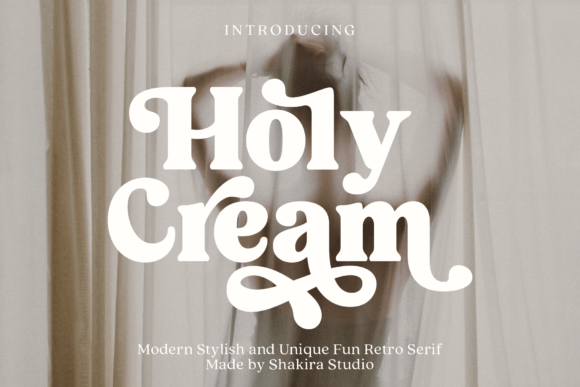
Introducing Holy Cream Font, the best font for resume headlines that will take you back to the trendy retro era. Created by Shakira Studio, this serif font family combines classic style with a modern twist, making it perfect for those who want to make a bold statement.
With its bold and contoured serif design, Holy Cream exudes a strong vintage touch that instantly captures attention. But what sets this font apart is its stylish and quirky alternatives, which add a charming creative dimension to your designs. Each letter is carefully crafted to emphasize uniqueness and elegance, making your headlines stand out from the crowd.
Holy Cream allows you to experience a touch of fun nostalgia while exploring ongoing design trends. Whether you're creating a print ad, poster, or any other graphic design, this font delivers a trendy, retro vibe that adapts seamlessly to various visual styles. It effortlessly adds a stylish and unique retro flair to your designs, captivating the audience and leaving an unforgettable impression.
But that's not all – Holy Cream is PUA encoded, which means you can effortlessly access all of its amazing glyphs and ligatures. This feature allows you to unleash your creativity and experiment with different letter combinations, giving your designs a truly personalized touch.
Why settle for ordinary fonts when you can elevate your designs with Holy Cream? Its keyword-rich and captivating style will instantly grab attention and make a lasting impression. Whether you're a professional designer or someone looking to create a standout resume, Holy Cream is the perfect choice for making your design speak in a stylish and unique retro language.